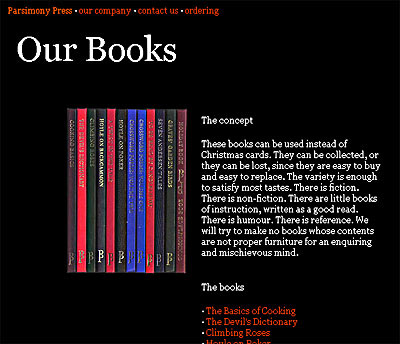
dot-font: The Mischievous Mind behind Microsoft’s TrueType Fonts
For a few short years in the early 1990s, Robert Norton had a decisive influence on something the great majority of us use and take for granted: the typefaces that accompanied a whole slew of Microsoft software products, including Microsoft Windows and software available for the Mac. Norton was “the cornerstone of Microsoft’s type group,” as Nicolas Barker put it in his obituary in the “Independent.” He was largely responsible for the selection and creation of typefaces for Windows and all other Microsoft software, including Word and Office.
Norton, who died in England on March 8, brought a lifetime of typographic knowledge to the task of overseeing Microsoft’s development of TrueType fonts. It was a small part of Microsoft’s business but one with a very wide influence, precisely because of the reach of Microsoft products.
Substance with Style
Norton’s stint at Microsoft could be considered just a coda to a long life in the typographic world. Because of his long experience—not just his knowledge of type but also his personal history of putting new typesetting technologies to profitable use—he brought to the Microsoft type group a depth of knowledge and taste that it couldn’t easily create for itself. Despite his skepticism about the gung-ho world of software developers, “his integrity stayed unchanged as his intellect wrestled with the task of preserving the individuality of letter-designs within the Microsoft straitjacket,” as Barker put it.
Norton’s wit, with which he obliquely but relentlessly tried to deflate pretension, including his own, showed up in the most unlikely places—even in the User’s Guides to Microsoft’s packages of TrueType fonts. Describing the very boldest, heaviest face in the Gill Sans family, Gill Sans Ultra Bold, he wrote: “There’s a lot of fun in this face, which is also known as Gill Kayo. In a sinking boat, you wouldn’t want to read directions in Gill Sans Ultra Bold telling you how to put on your life jacket. But if a sign said stop [this one word is printed, in the guide, in the typeface itself], you would probably stop, even if you normally are not very obedient.”
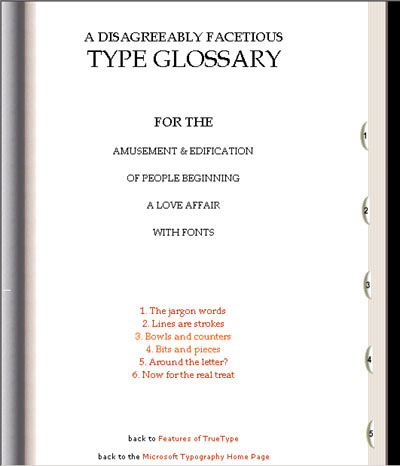
Robert Norton’s playful irreverence found its expression in many venues, including this online type reference.
In its combination of irreverence and historical erudition, Norton’s style is unmistakable. On Baskerville Old Face: “This face is based on one developed by the renowned 18th-century typographer John Baskerville. But tell-tale differences, including the characteristic squarish curves in the capital C and G, identify it as the version first issued by the Fry type foundry, established by the Fry family after they succeeded in the chocolate business. The face first appeared in 1766 under the name of Isaac Moore, the foundry manager.”
Readers who take the trouble to navigate through Norton’s online type primer and reference—A Disagreeably Facetious Type Glossary—are in for more of the same. Norton begins: “We now have to accept font (as the Americans with an uncharacteristic economy took to calling it) as an alternative to fount, even though a font is really what contains the holy water that is used in baptisms in a Christian church. The word is now too widely used to resist. ‘A fount of knowledge’ is nevertheless a far more appropriate association.”
Best Remembered
I knew Robert Norton only briefly, during his stint in the suburban fringe of Seattle. He was a huge man, six foot six and “broad to match” (again, in Barker’s words), with a large head and a shambling gait. He took delight in applying his typographic skills and knowledge to the problems of choosing and judging the fonts that Microsoft would issue, but in that environment of young software whiz kids he seemed a little like a fish out of water. He brought me in at one point for a short stint evaluating the outlines for a bunch of typefaces being considered, but while I was there I was for the most part actually dealing with other, more technical people. I would occasionally go out to lunch with Robert, where we might talk about the job at hand or about anything else under the sun. I’m only sorry I didn’t see more of him after that particular project was through. I did manage to get him a few times to attend an informal group of people in Seattle who liked to get together and talk about type. He was always excellent company.
He was oddly self-deprecating for someone so accomplished. After the release of his wonderfully eccentric little book “Types Best Remembered/Types Best Forgotten,” Norton told me he had sent me an invitation to be one of the contributors (each of whom named one typeface they thought should be commemorated, and one they’d like to see discarded forever), “but you probably filed it in the round file.” He affected not to believe that I might not have received his invitation. (I would have been very happy to contribute. I can easily imagine letting such a letter sit on my desk too long while I thought about the best way to approach the problem, but I would never simply have forgotten it.)
That book was a fine example of his ingenuity, too. He had taken to publishing small books like that himself, at odd intervals, and making their production cheaper by dealing with printers that he knew were doing large jobs; he would find out what size page could be printed on the extra paper that would otherwise be trimmed and thrown away, and he would adjust the format of his book accordingly. This sometimes meant less than ideal control over what kind of paper he could use, but it did make it possible for the books to come out, without the intervention of a large publisher.